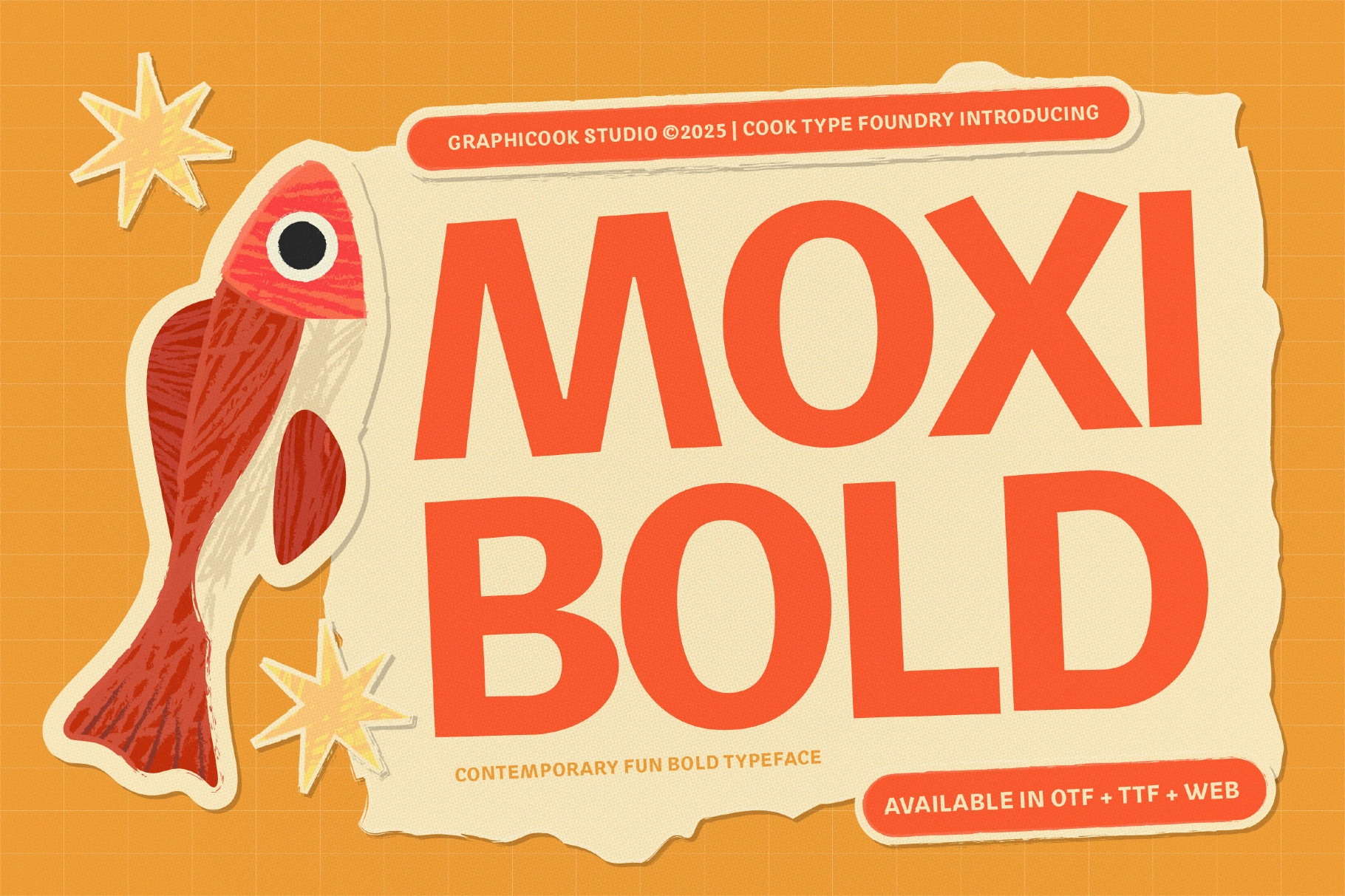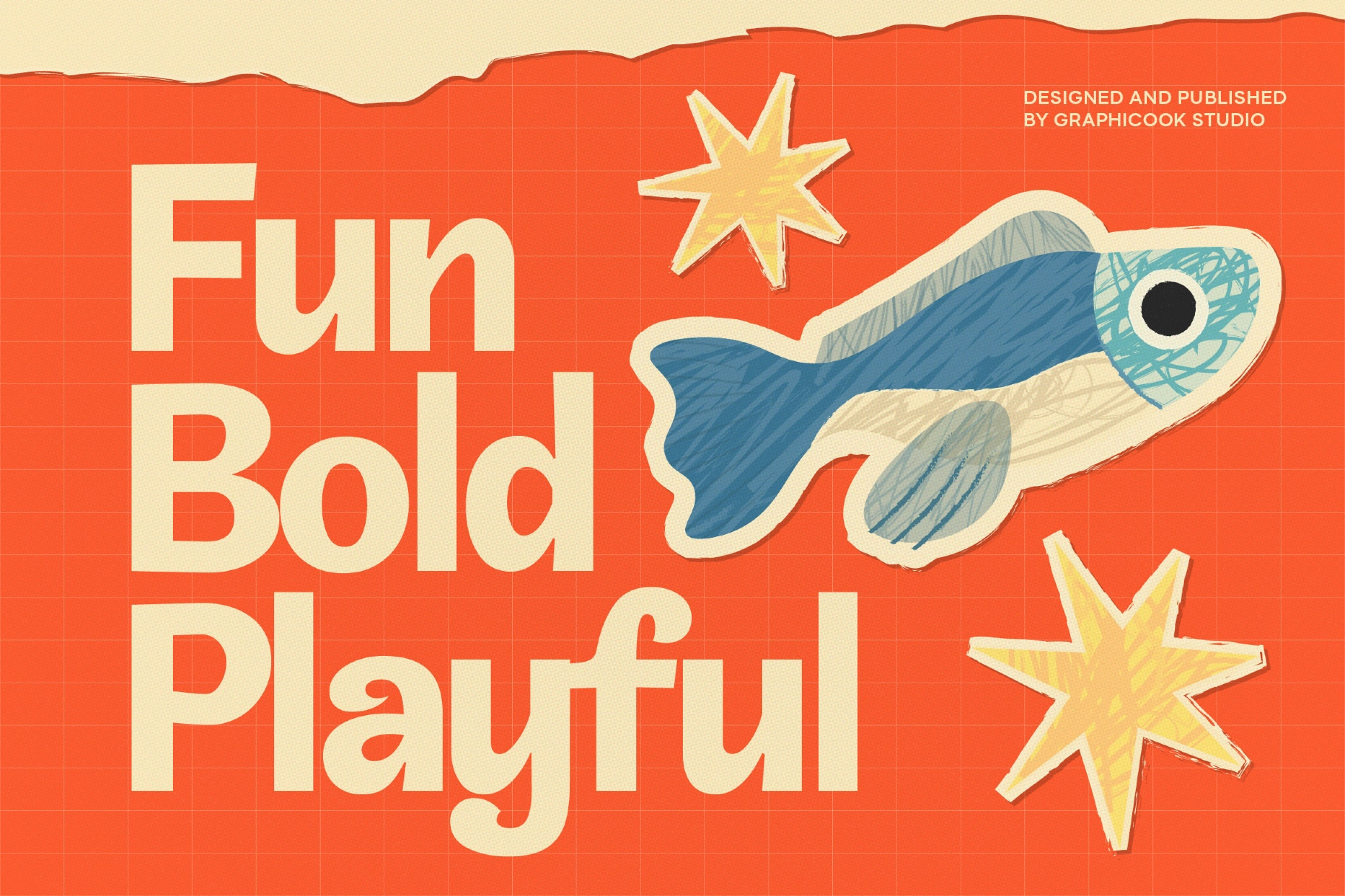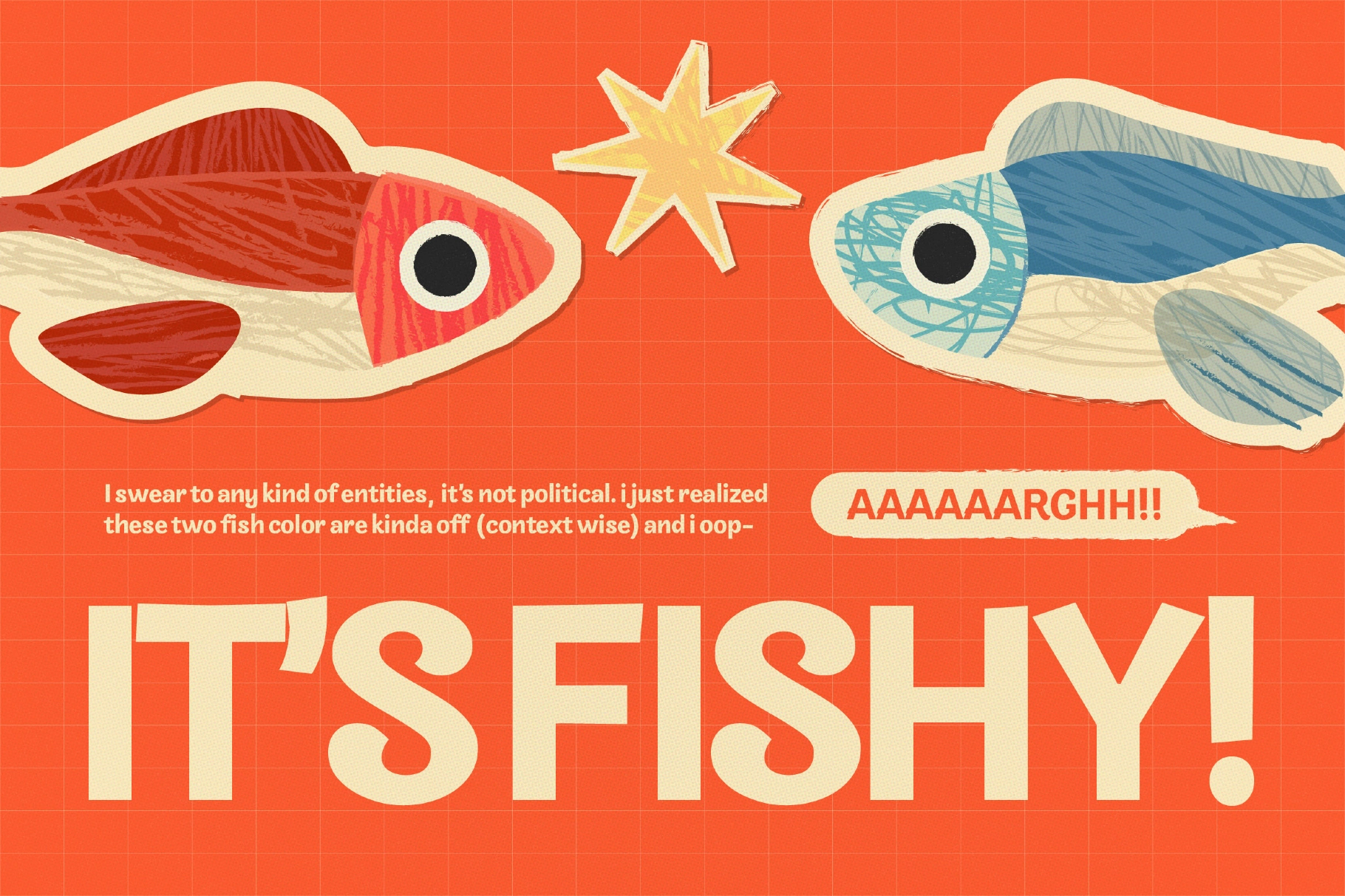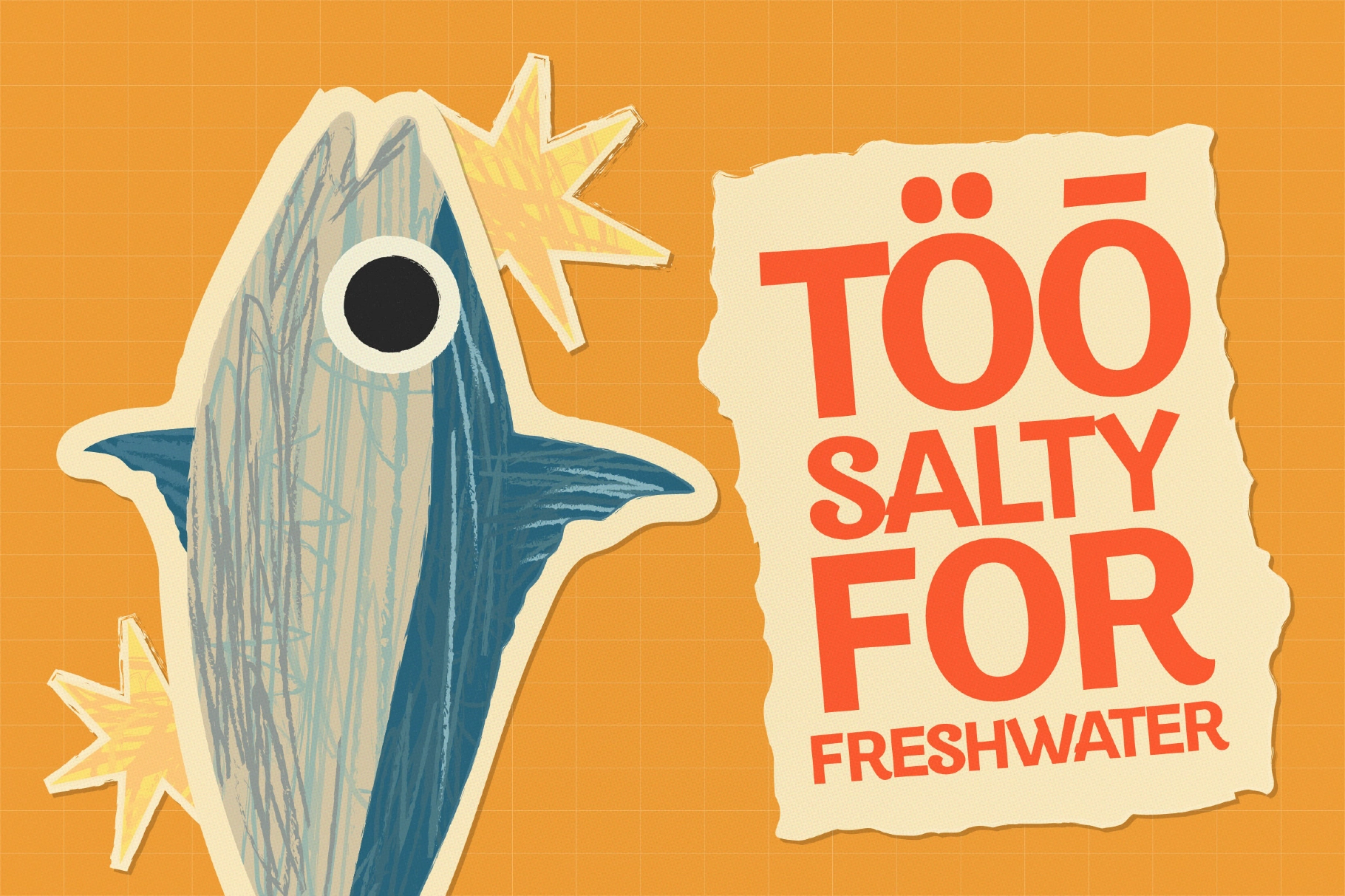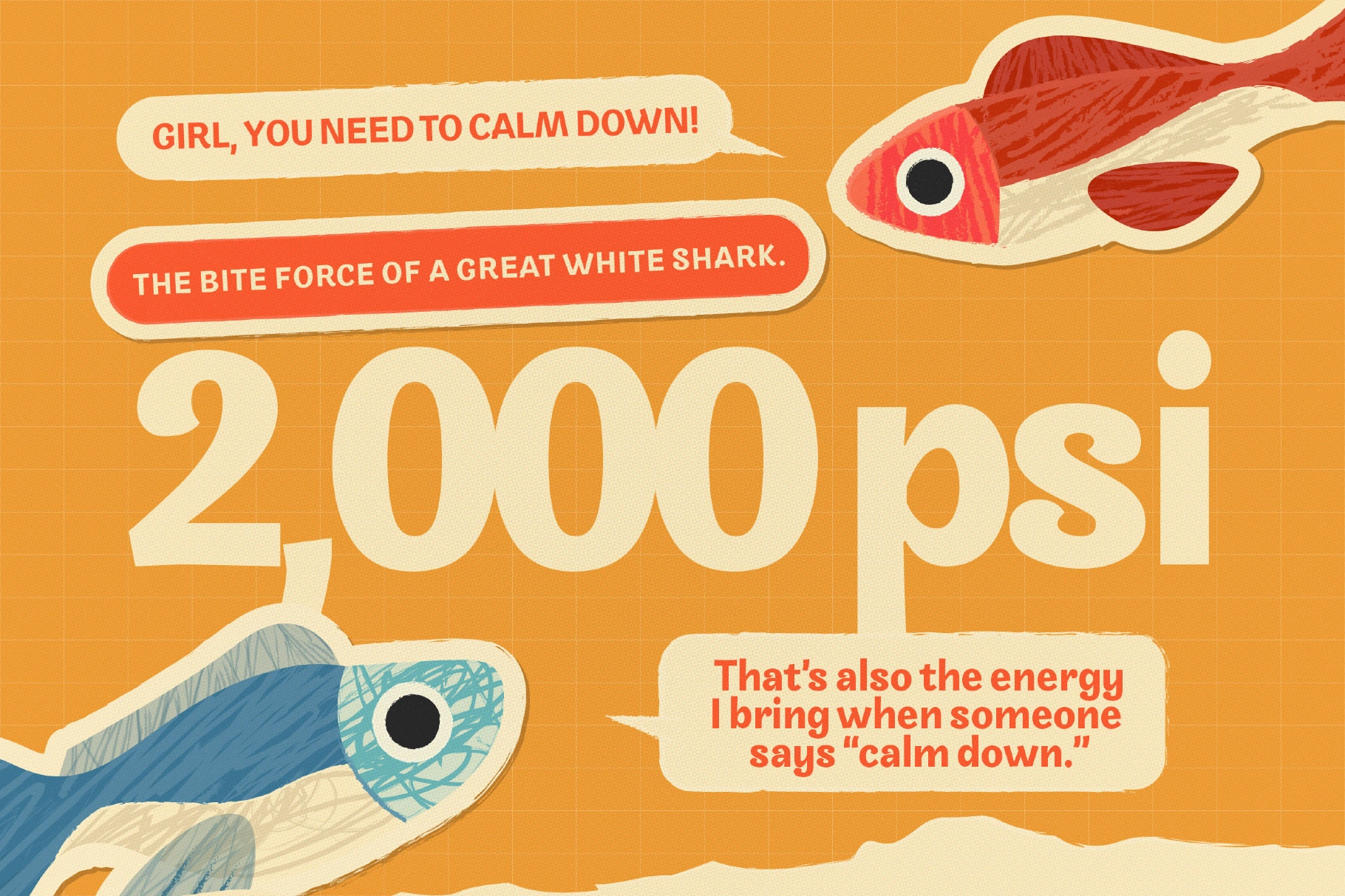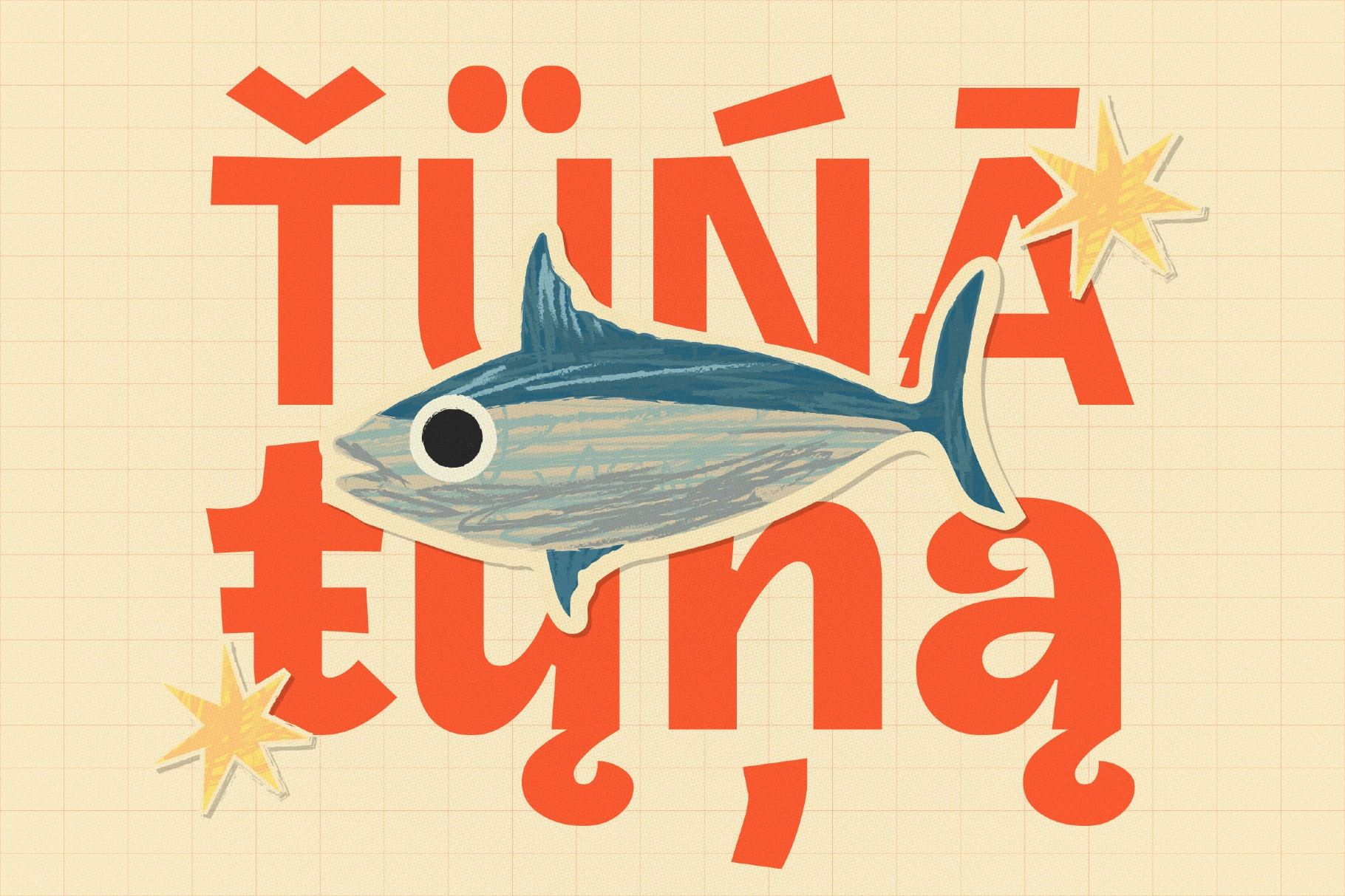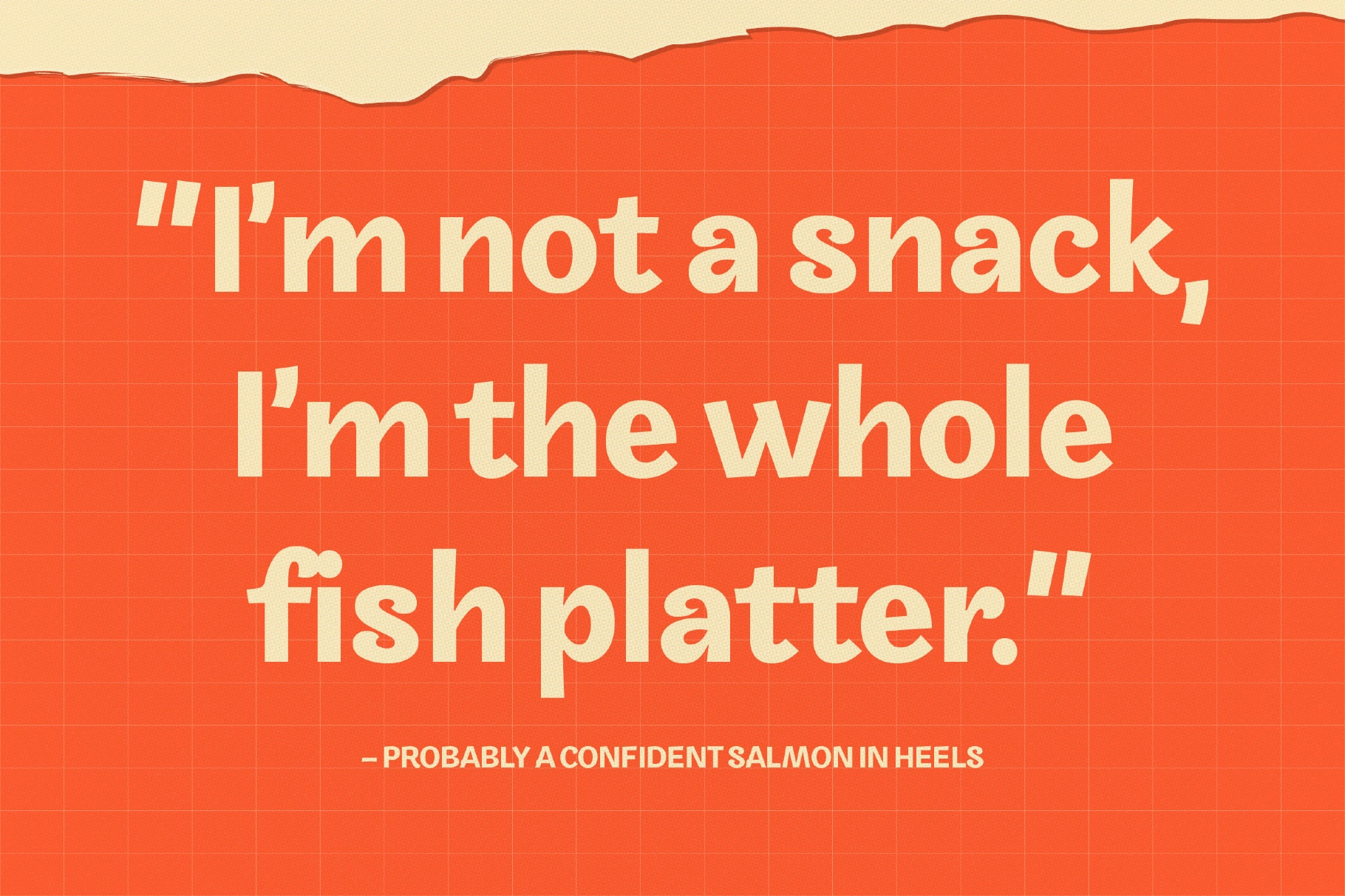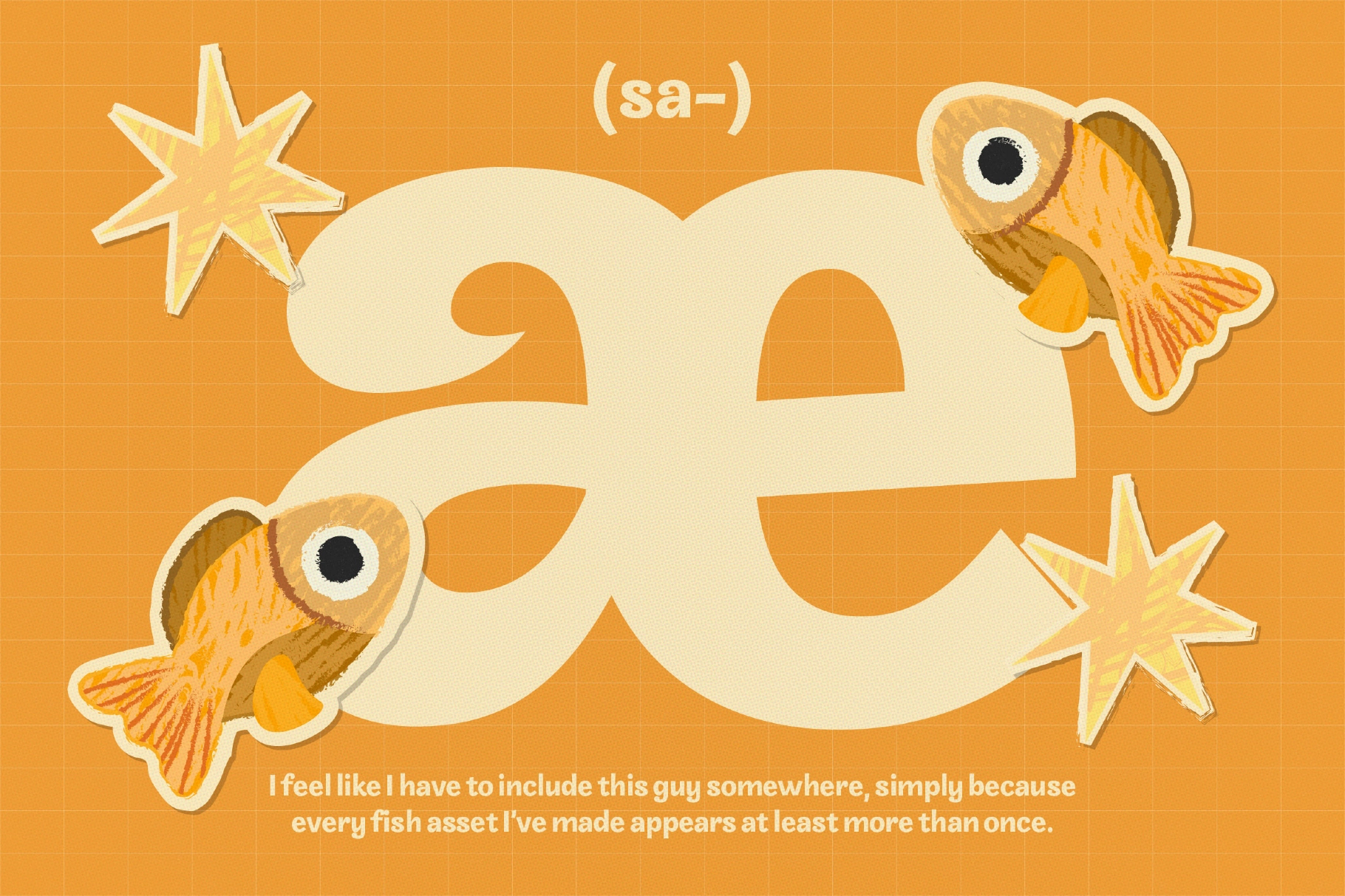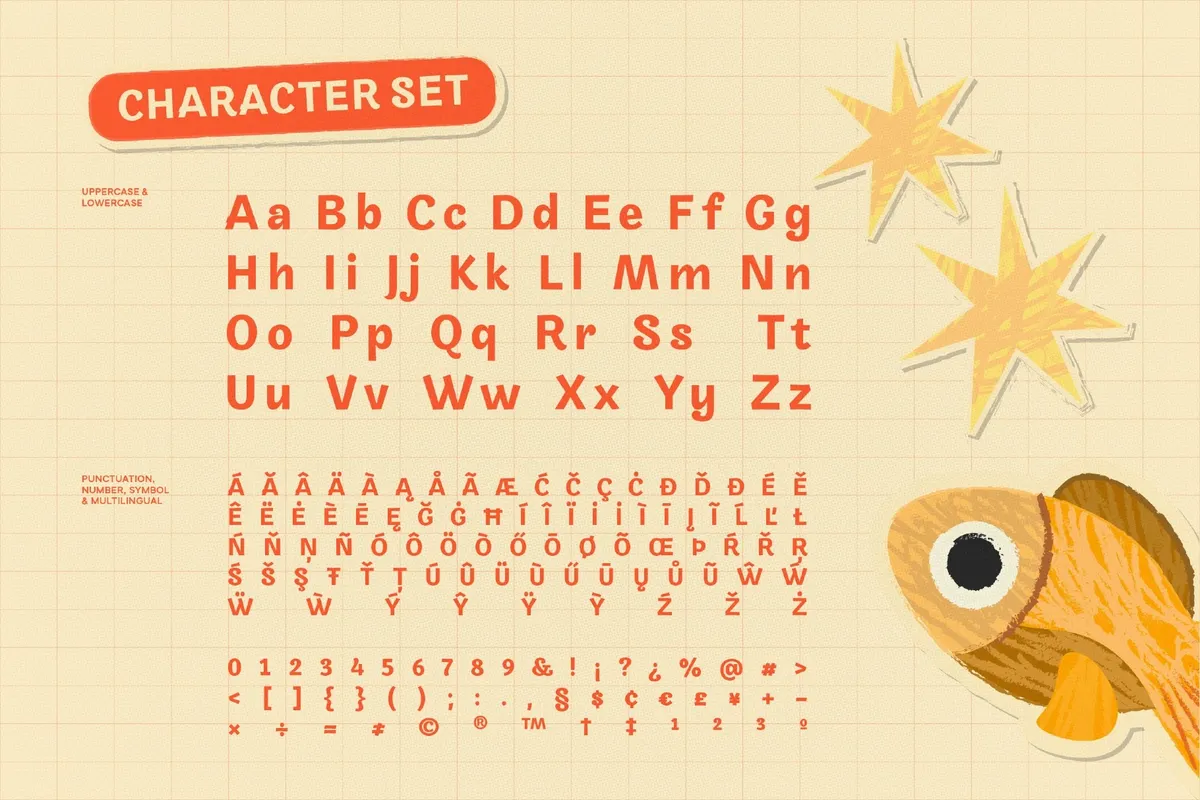
Moxibold Font
Moxibold
Moxibold is a sans-serif font featuring several uniquely shaped, unconventional letters that convey a fun and playful tone. Ideal for bold, expressive designs with a strong personality.